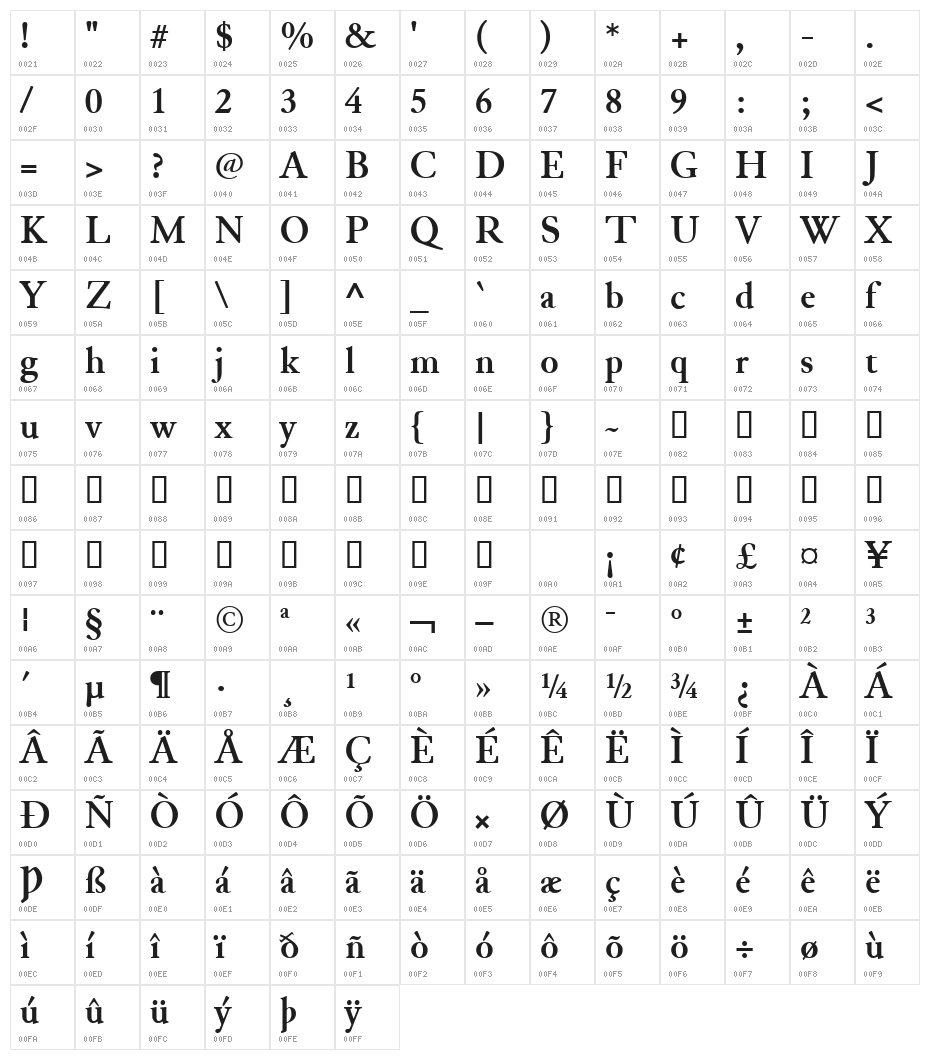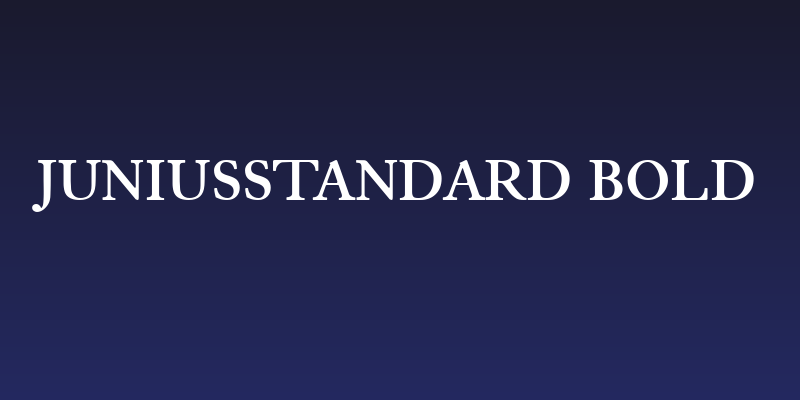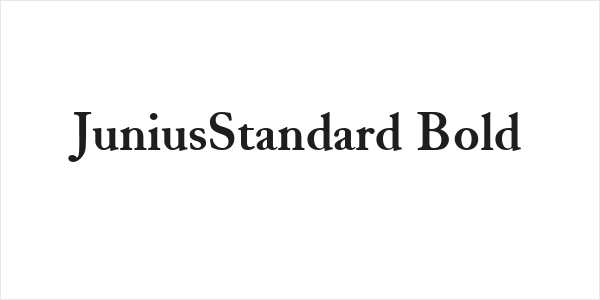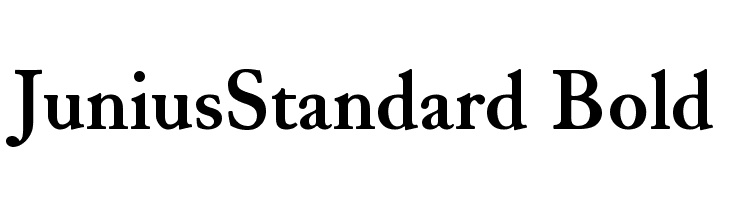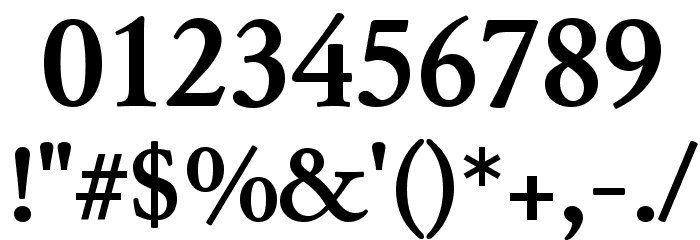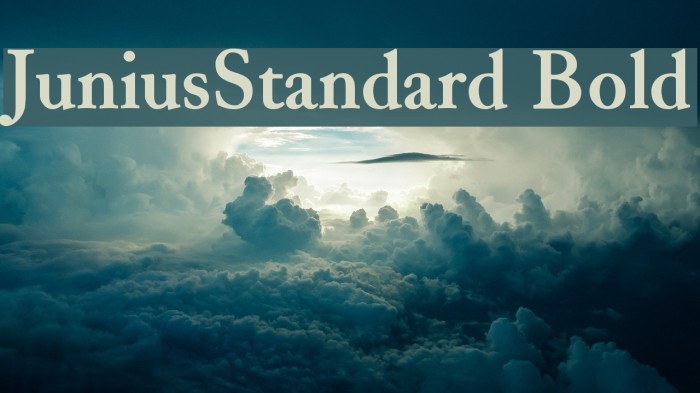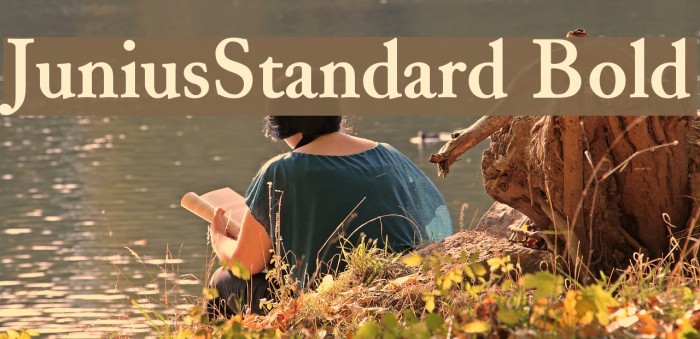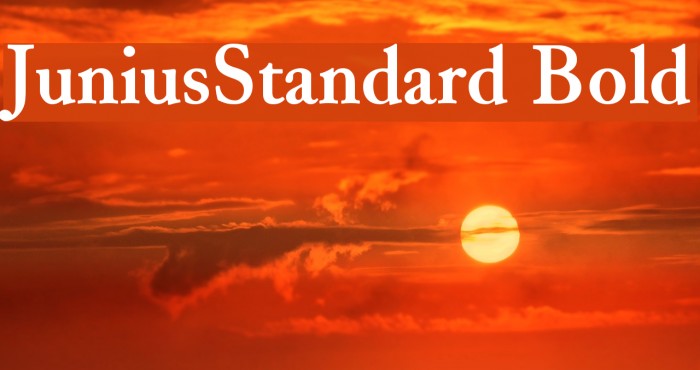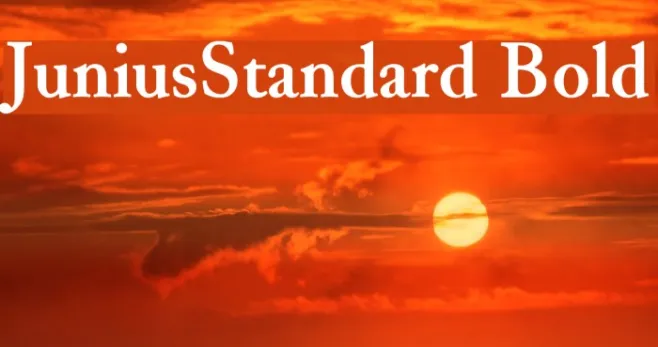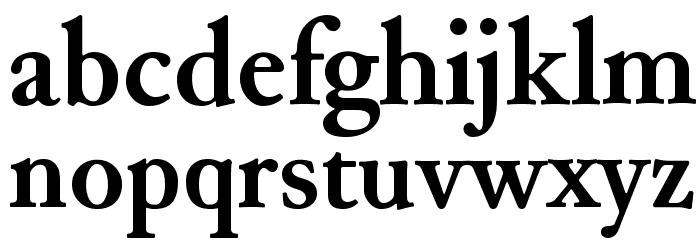
JuniusStandard Bold Font
JuniusStandard Bold Description
This font features a classic serif style with strong, bold strokes that provide a sense of authority and tradition. The uppercase letters are well-proportioned with a slight contrast in stroke thickness, giving them a refined and elegant appearance. The lowercase letters maintain a consistent style, with rounded edges and a smooth flow that enhances readability. The numerals are clear and distinct, making them suitable for both formal and informal contexts. Special characters are designed with the same attention to detail, ensuring a cohesive look across all glyphs.